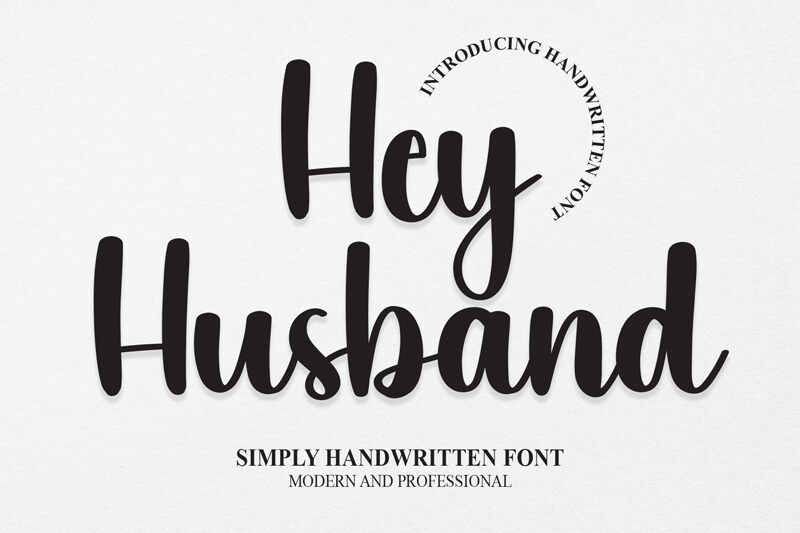
Hey Husband
Hey Husband, crafted by Scratchones, is a captivating and dynamic semi-bold font that embodies the essence of creativity. Its smooth brush style delicately balances elegance and playfulness, making it perfect for a wide range of projects.
Capture attention with eye-catching logos and branding materials or add a touch of sophistication to your fashion editorials. Stand out in the digital world with engaging website headers or create stunning social media graphics that leave a lasting impression.
Hey Husband brings versatility and charm to any design endeavor.